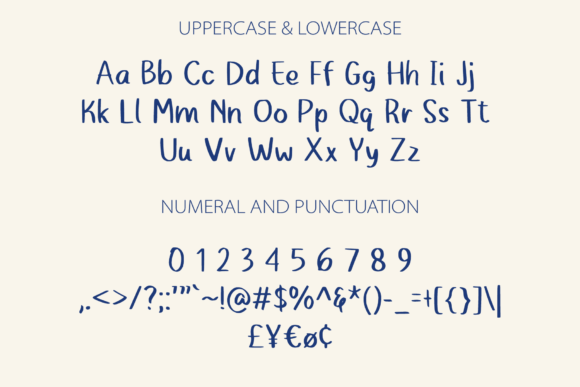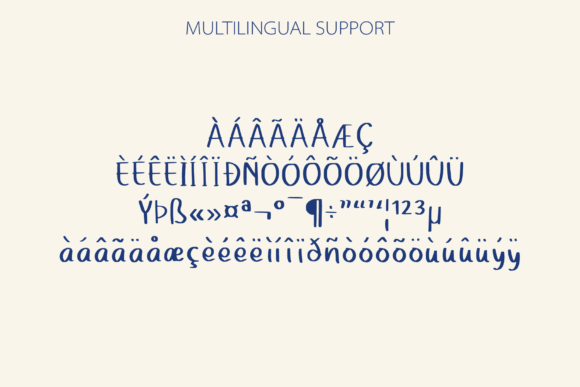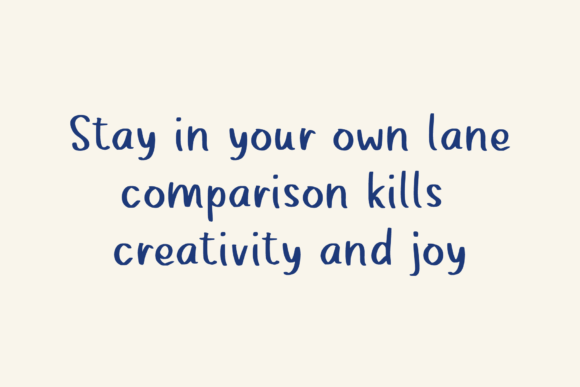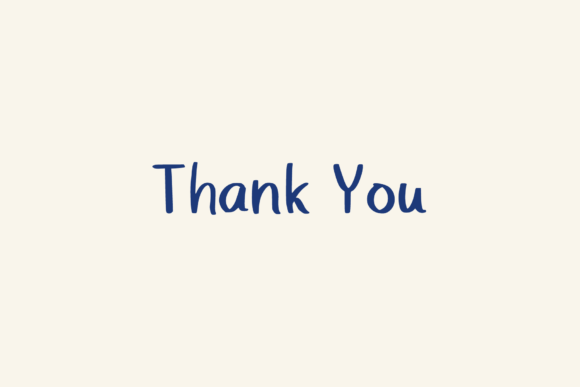
Kaka Dory Font
About Kaka Dory Font
Introducing Kaka Dory, a cute and charming handwritten font that exudes whimsy and a touch of quirkiness. This font is designed to bring a bright and playful element to your designs, making it an ideal choice for various creative projects.
The charm of Kaka Dory lies in its cute and handwritten style, adding a delightful and friendly touch to your creations. The whimsical and quirky nature of the font makes it perfect for projects where you want to infuse a sense of lightheartedness and fun. Imagine Kaka Dory in children’s books, where it adds a playful and imaginative flair to the storytelling. Picture it in greeting cards or posters, where it brings a cheerful and charming vibe to your messages.
The versatility of Kaka Dory allows it to shine across different design contexts. Whether used for print or digital media, this font adapts seamlessly, contributing to the visual appeal of your projects. Its cute and charming design makes Kaka Dory a font that adds a touch of joy and character to your creative endeavors.
Visualize Kaka Dory becoming a delightful part of your design toolkit, transforming your projects into visually engaging and whimsical pieces. Envision it in branding or packaging, where its charming and quirky presence sets your products apart. Kaka Dory’s ability to bring a smile to your designs makes it a valuable addition that brings a special and playful touch to your creations.
In conclusion, Kaka Dory is not just a font; it’s a cute and charming design asset that celebrates the lighter side of creativity. Download it today and experience how it transforms your designs into expressions of whimsy and joy. Make Kaka Dory a cherished addition to your font collection, and let it be the key to unlocking a world of playful charm in your designs!